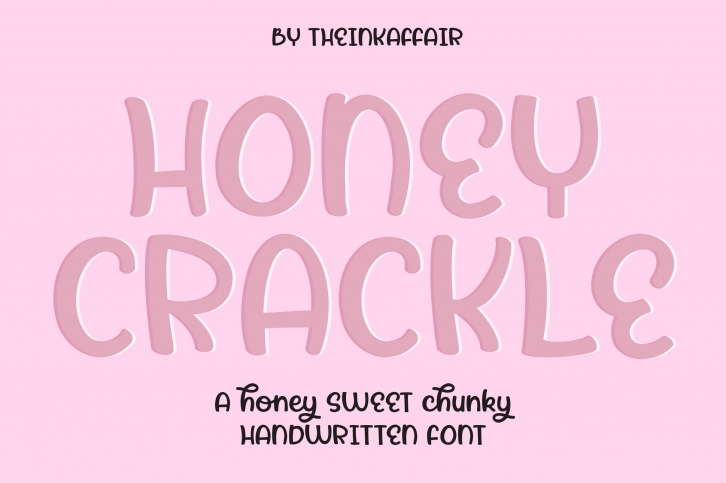
Honey Crackle, a bold chunky handwritten is a gorgeous font that was realeased on May 8, 2020. The font can be used in many style contexts and design environments. Perfect for invitations, magazines, websites, logos, and more! It was designed by theinkaffair and the file size is 1.87 MB. Thanks for checking out this font!